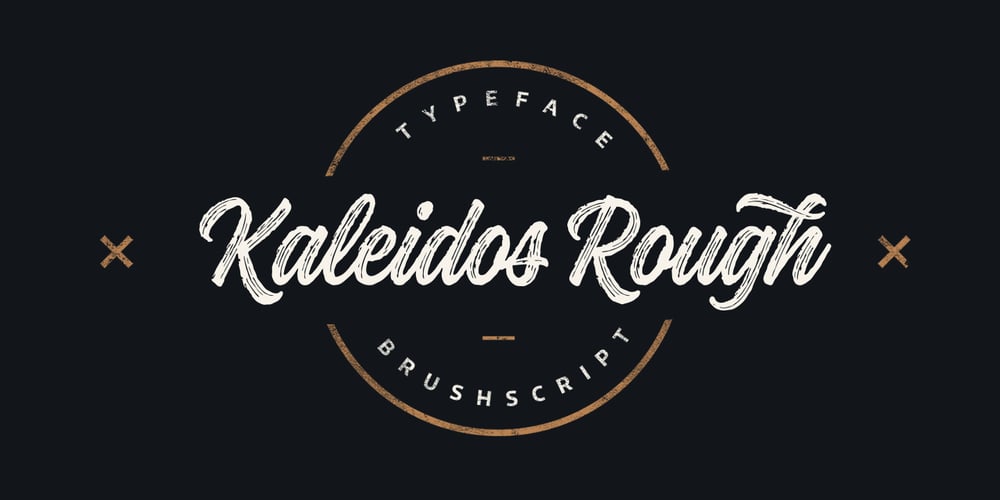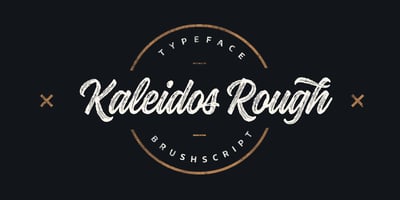
Kaleidos Rough Font Family was designed by published by Melvastype. Kaleidos Rough contains 2 styles and family package options. Kaleidos Rough lining is a brush script. It has two versions; Kaleidos Rough and Kaleidos Textured. The rough version has rough edges to mimic authentic brush strokes. The textured version also has those rough edges and in addition it has a brush stroke texture to mimic dry ink. Both versions are sketched and drawn with a pointed brush pen. Kaleidos Rough has plenty of alternates, ligatures and swashes so you can build interesting-looking words and headlines. Although Kaleidos Rough is condensed and quite tightly spaced it is clear and legible. Also check out Kaleidos Smooth, a clean and smooth version of Kaleidos.